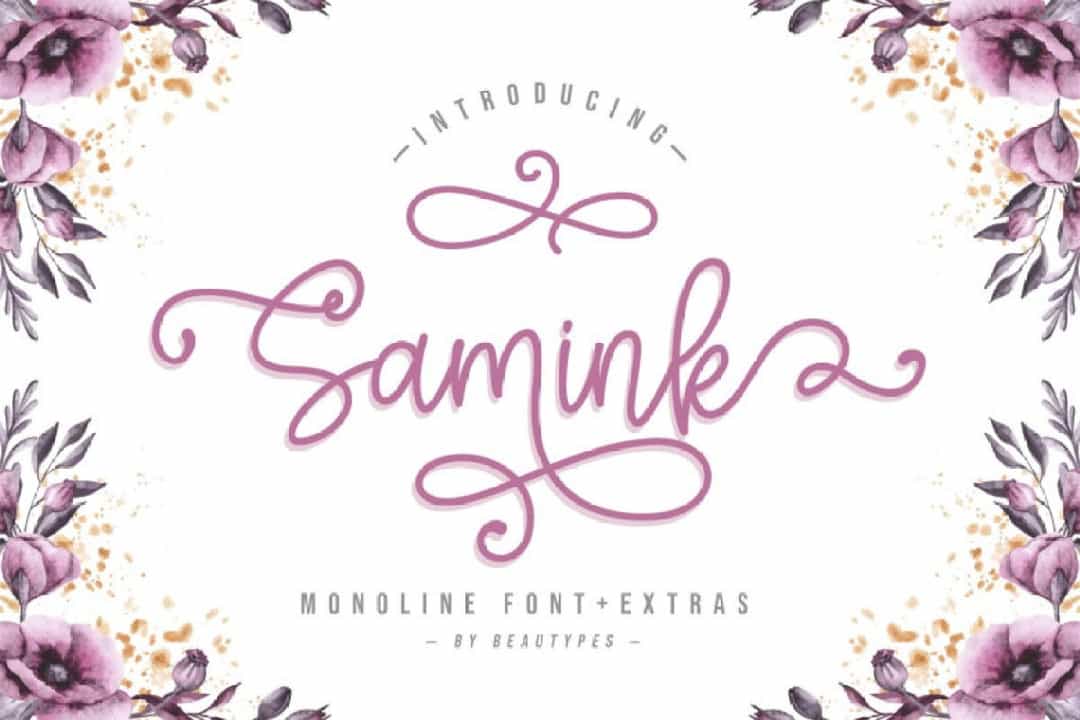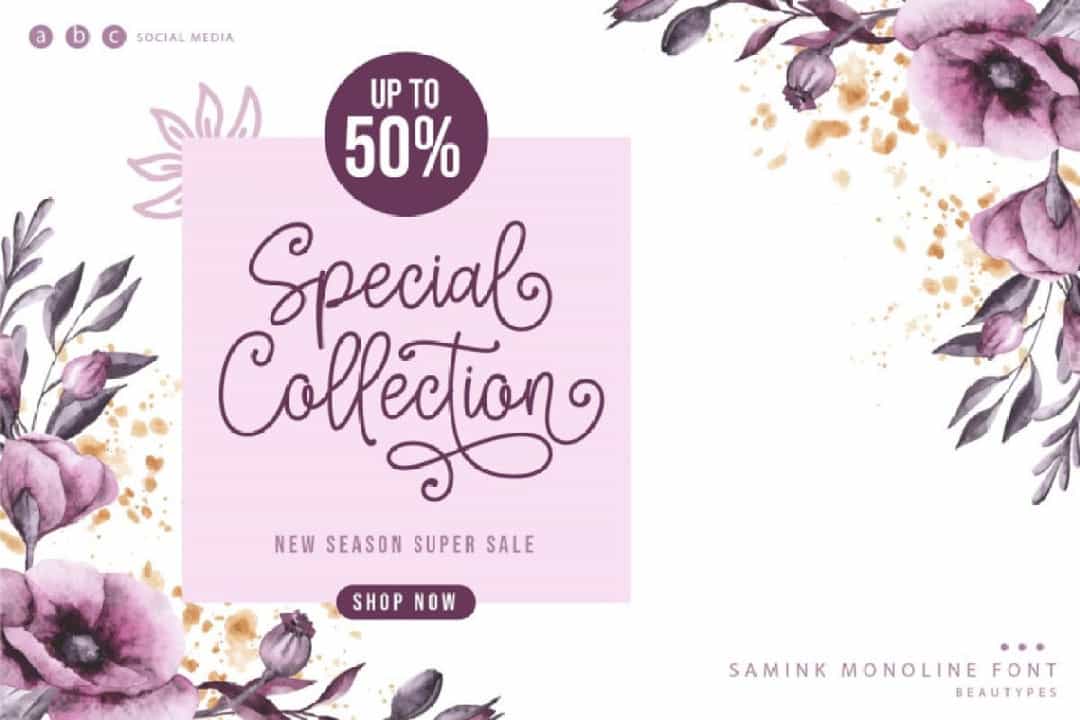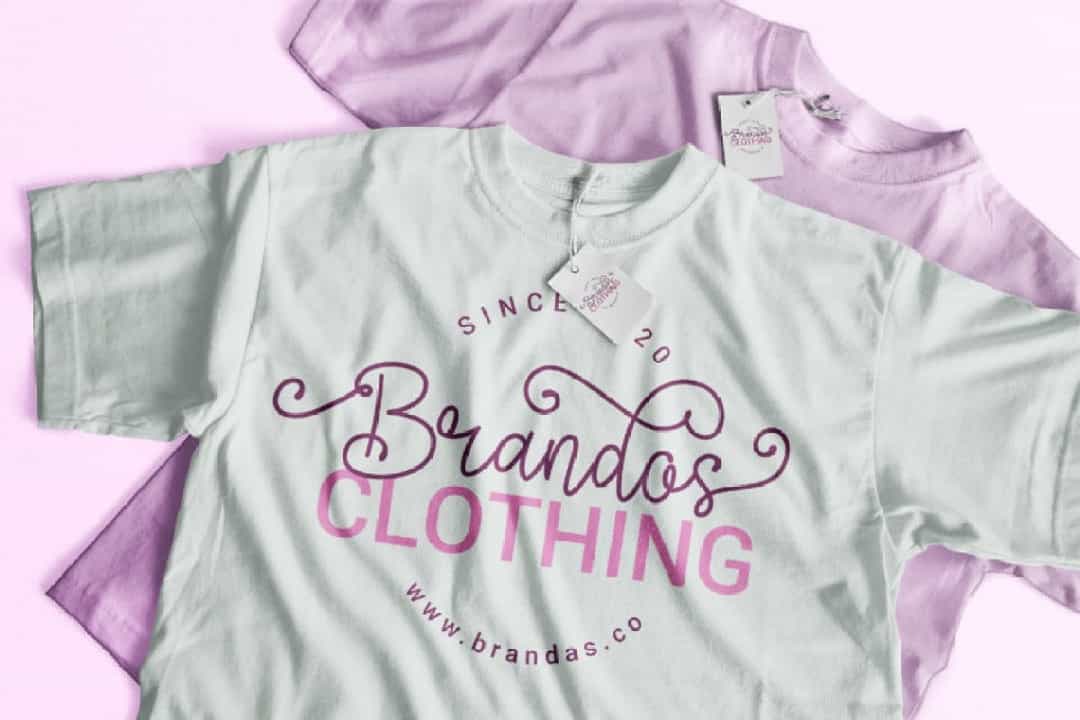
Discover Samink Font, part of the Calligraphy Script Monoline Personal collection—a versatile and unique font perfect for adding a personal touch to your projects. Download it for free and enjoy crafting designs with style, from invitations to social media posts. This font is available exclusively for personal use, giving you the freedom to create without limits. Unlock your creativity with Samink Font today!
Samink is typography solutions offer you all the typographic solutions you need in one package that you can use for logos, handwritten quotes, product packaging posters, header products, social media headers and greeting cards among others. Samink Font contains more than five hundred glyphs (Alternate and Ligature).